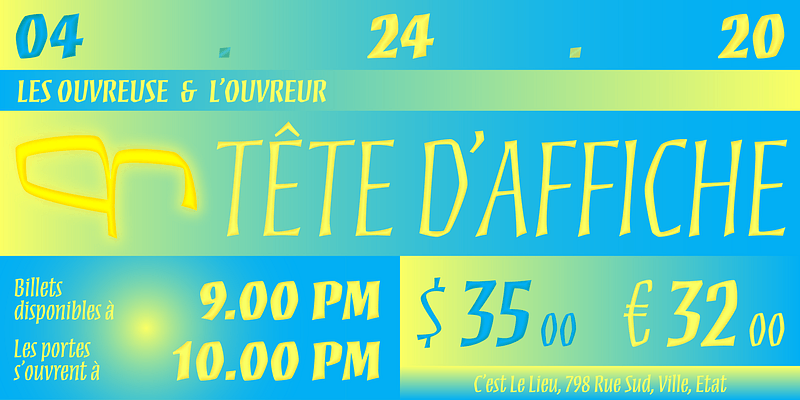
Mezz
Clarinetist Milton “Mezz” Mezzrow (1899-1972) was a remarkable jazz musician-hipster-raconteur (anyone interested should Just as Mezzrow improvised new compositions or variations of classic themes, so typographers can use the weight axis of Mezz Multiple Master to improvise on Harvey’s theme. Vertical formats such as book jackets and posters will be invigorated when Mezz is the display face.